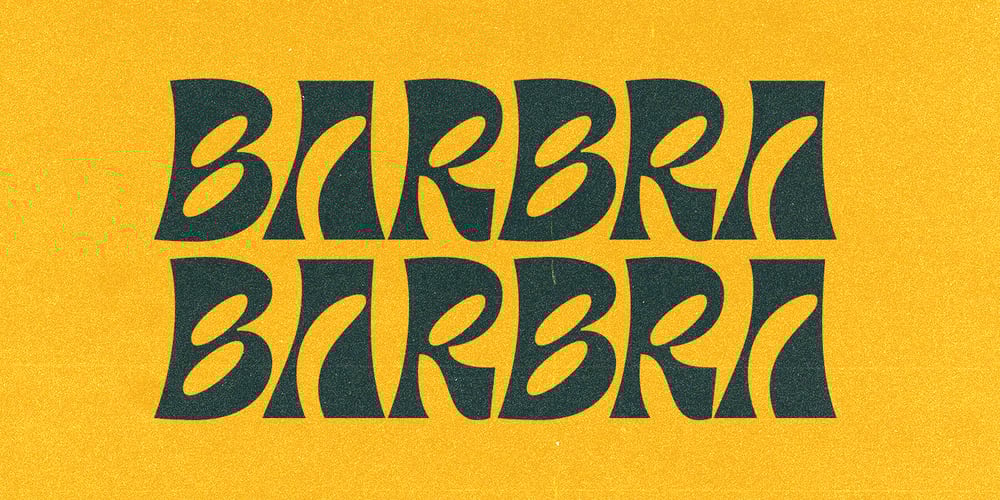
Barbra Font Family was designed by Nurron Shodiqin and published by Nurrontype. Barbra contains 4 styles and family package options. Barbra is a display font family with unique letterforms and harmonization. It’s bold, brutalist, gorgeus and emotional. While I developed Barbra, my mom passed away. It’s broken my heart. So I tried to represent my mixed feeling in Barbra with the expressive curve in each letterform. Up and down, right to the left. The uppercase will make your headline stand out, fresh, and organic, even when you use it for your next logo project. While the lowercase is designed to make a harmonization when you put in words or sentences. FEATURES— Total glyph set: 246— 4 Families (Regular, Italic, SemiCondensed Regular, Semicondensed Italic)— OpenType Features:— Lowercase— Uppercase— Ligatures— Numbers— Symbols— Diacritics— Stylistic Alternates